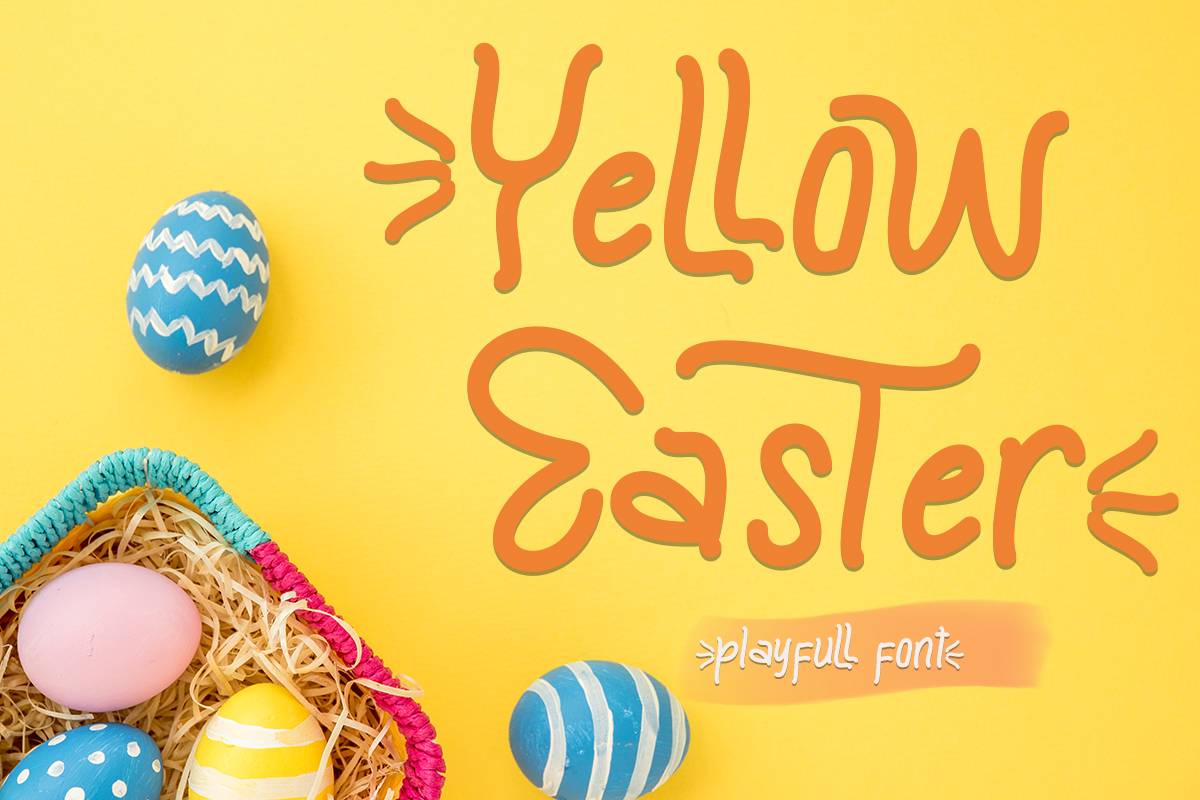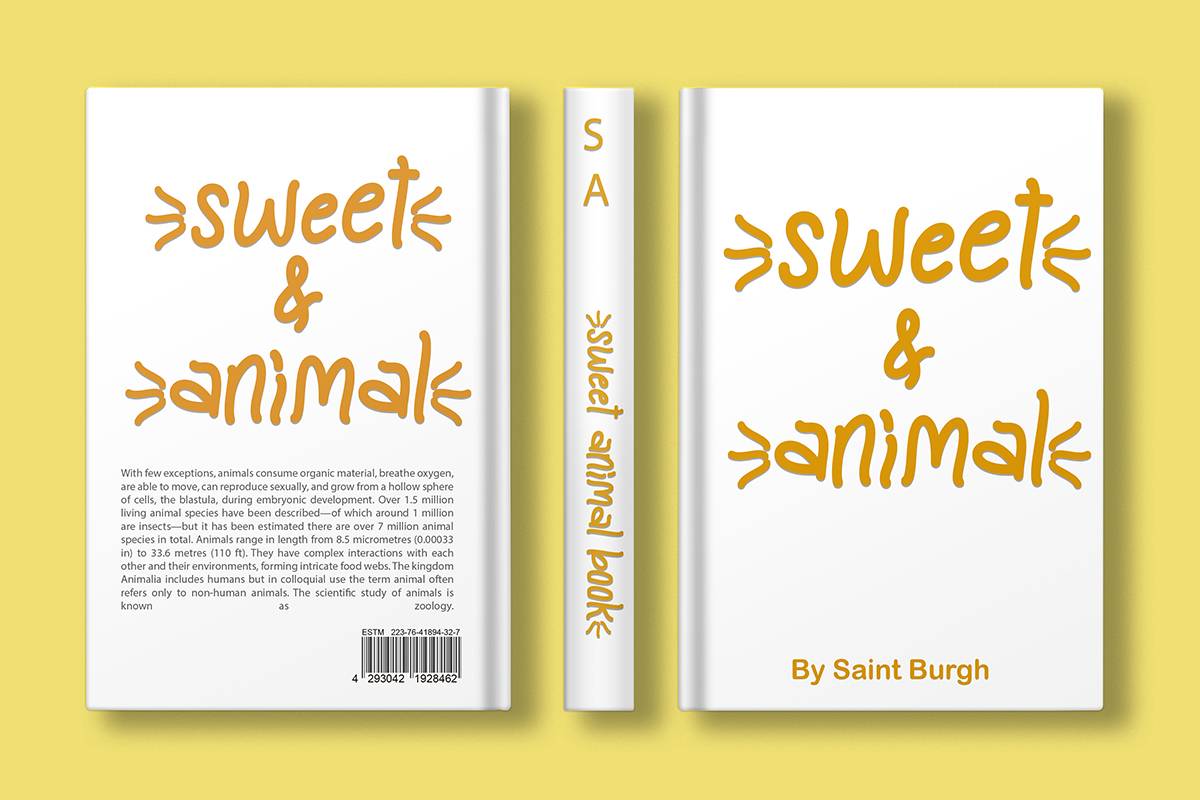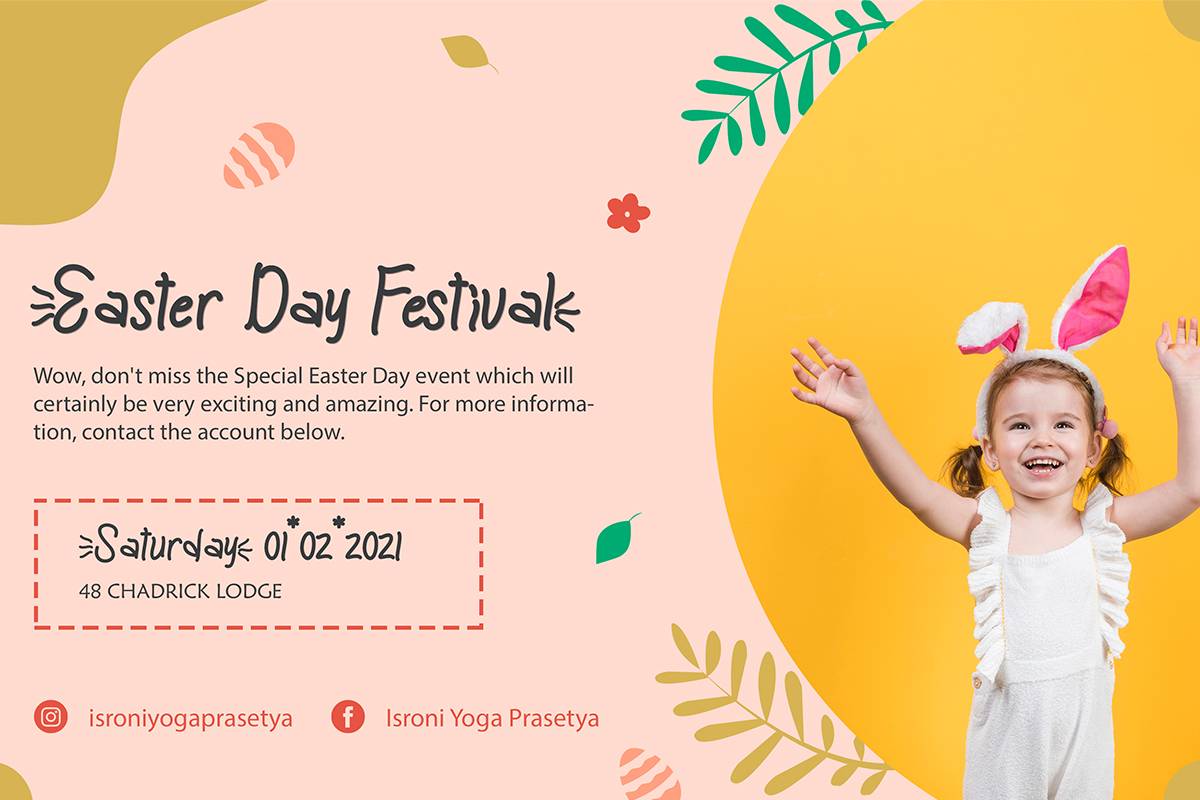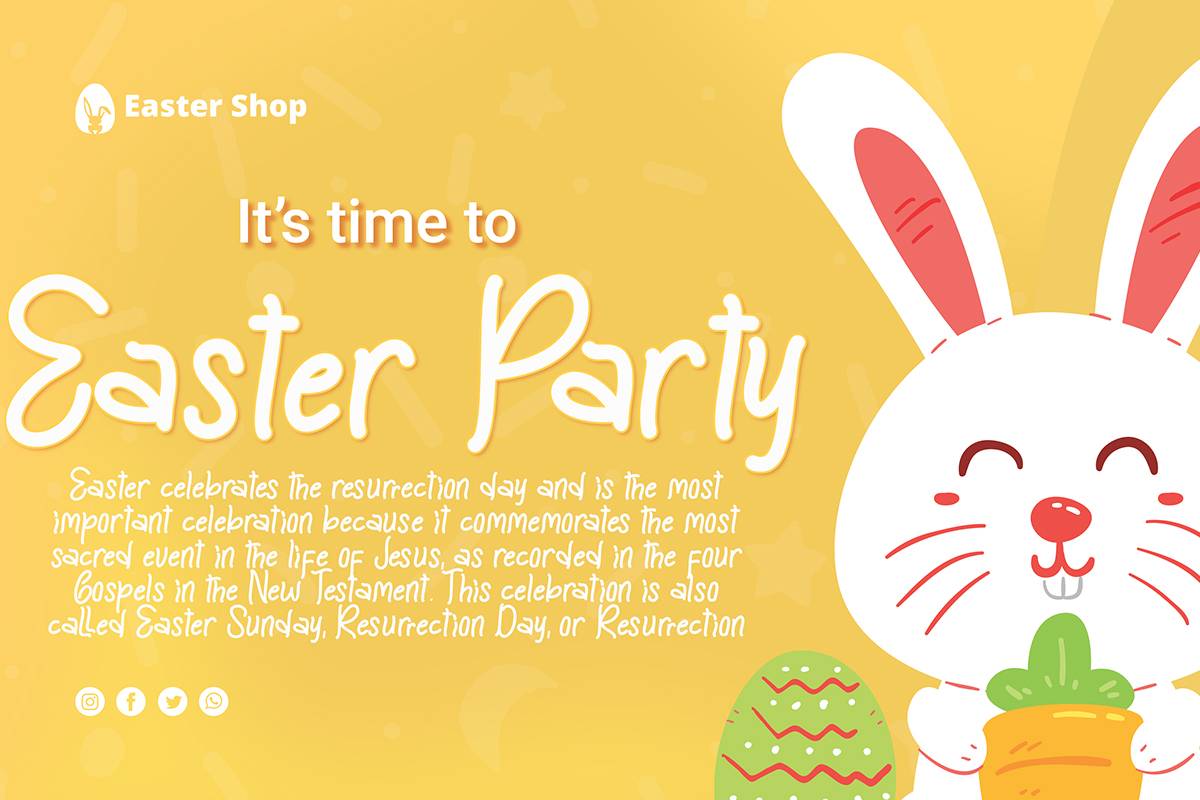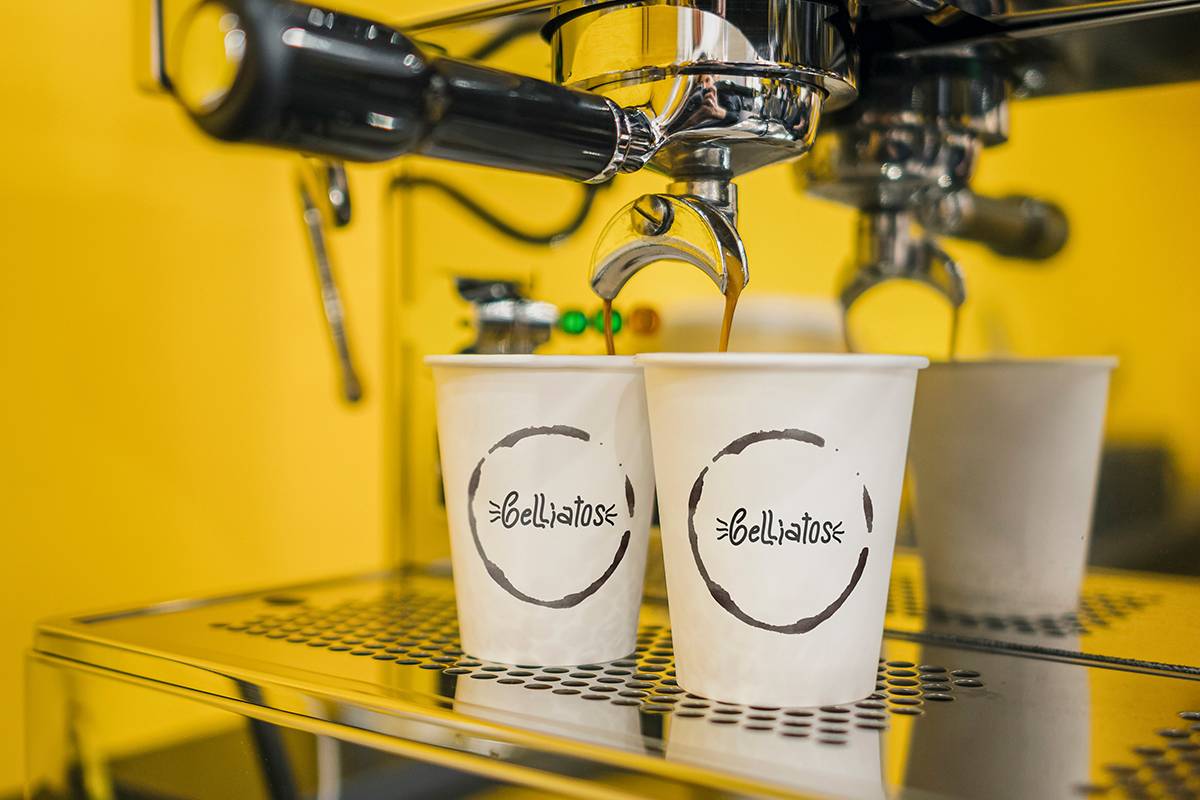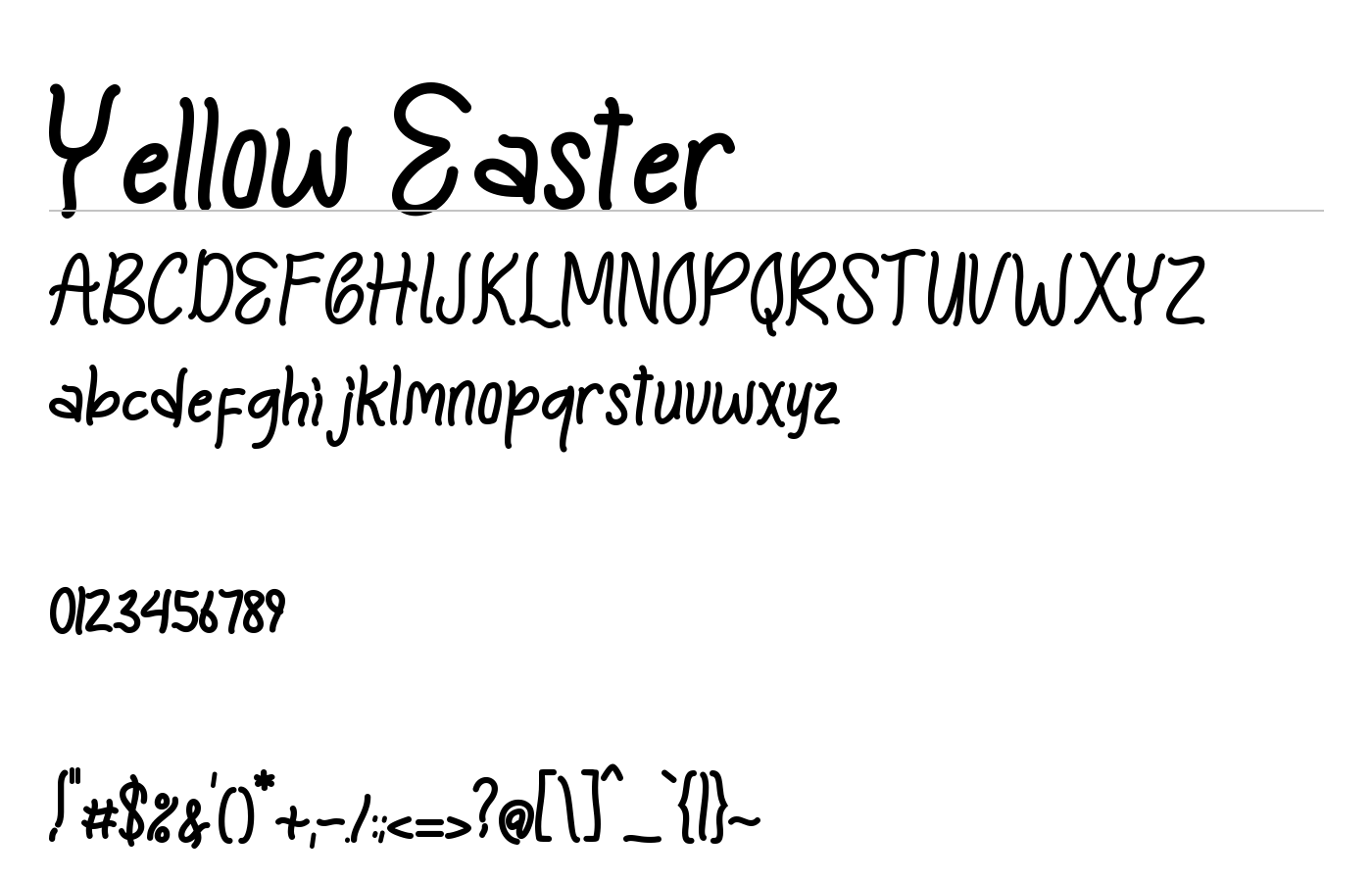
Yellow Easter is a playful, handwritten sans-serif font with a casual and friendly character. Its irregular, slightly condensed letterforms and quirky curves give it an inviting, informal feel, making it ideal for creative projects, greeting cards, and fun branding that want to convey warmth and individuality. This font works especially well in designs that need a lighthearted, personal touch without sacrificing readability.
Yellow Easter Font
About Yellow Easter Font
| Font family | Yellow Easter Font |
| Release date | 2021-02-26 |
| Designer | Yogaletter 2021 (Isroni Yoga Prasetya) |